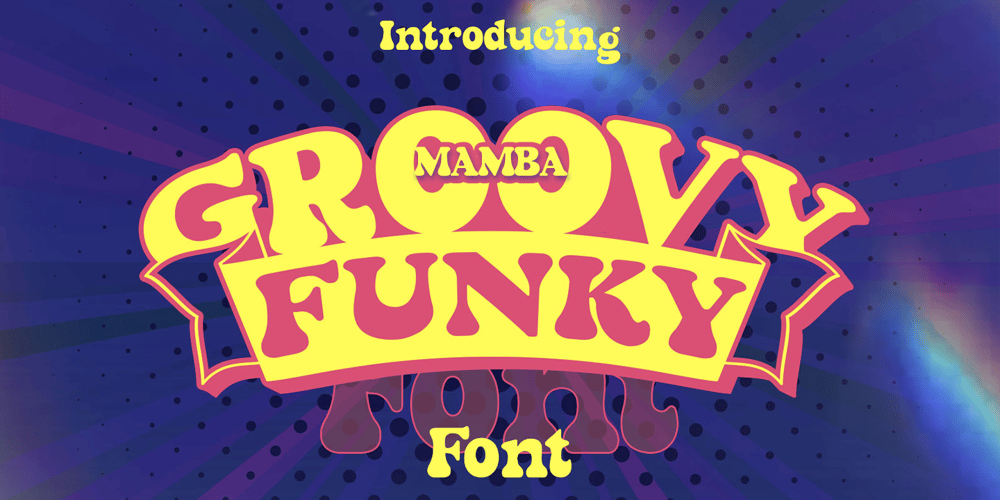
Mamba Groovy Funky Font Family was designed by Mohammed Lamjidi and published by Beast Designer. Mamba Groovy Funky contains 1 styles and family package options. Mamba Groovy Funky Font is a fun, retro-style display font. It’s suitable for funky designs and also perfect for creating t-shirts, tote bags, hats, stickers, logos, cards, and more!